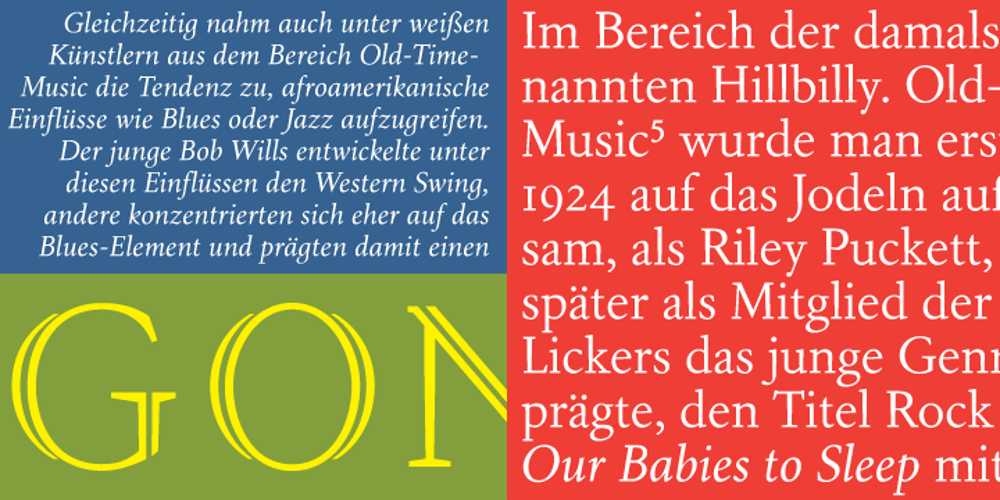
Aragon Font Family was designed by Patrick Griffin and published by Canada Type. Aragon contains 9 styles and family package options. Re-introducing the classic mid-1500s Garamond forms for the twenty-first century is never an easy task. But Hans van Maanen makes a fine attempt at just that by remodeling the traditional shapes through a modern lens with stunning results. Aragon is a workhorse family that performs very well in a variety of text sizes, from footnotes and legal copy to lengthy body sets. Its combination of wedge serifs with uniquely tapered stems offers a sturdy Dutch touch that improves legibility altogether, while at the same time the slight stress shift to the top half of the characters makes the immersive reading experience very open and comfortable. The Aragon family comes in a standard two-weight set with corresponding italics, a roman small caps font with its own italics, and very attractive initials for display uses. All fonts come in the usual popular formats, and include a glyph repertoire that covers Western, Central and Eastern European languages, as well as Turkish and Welsh/Celtic.